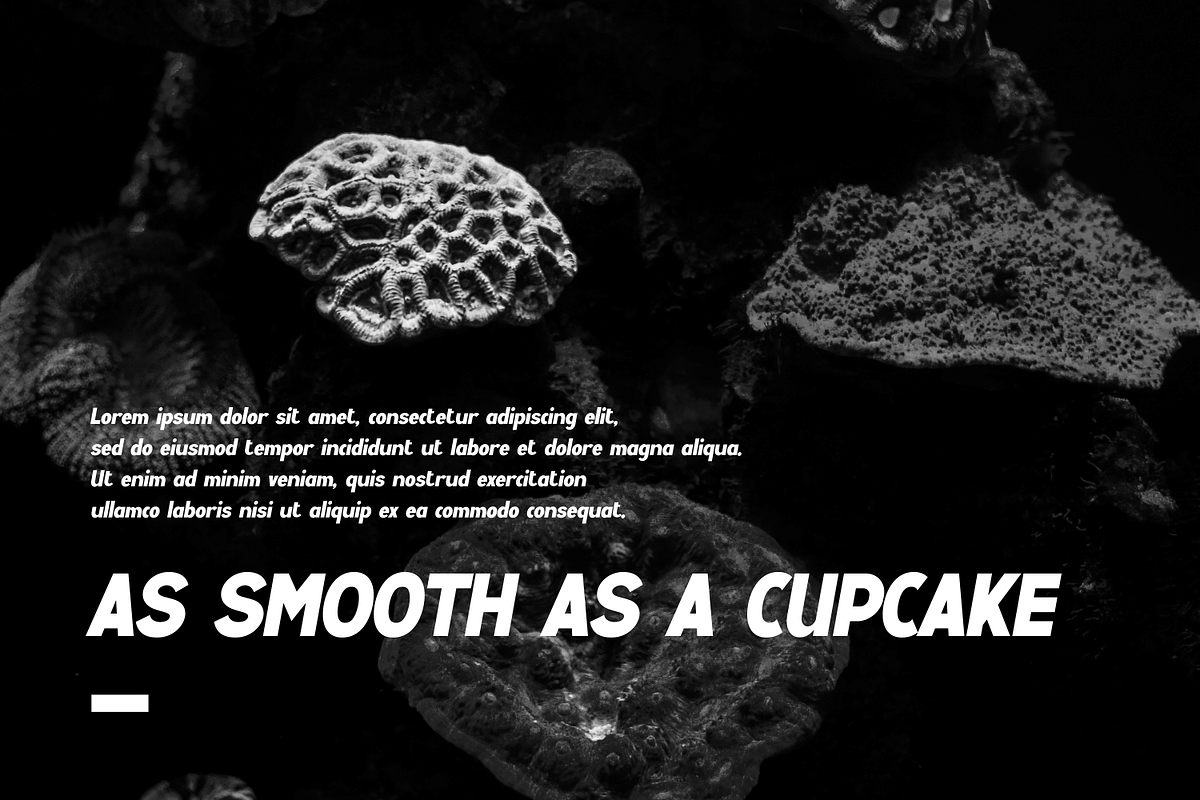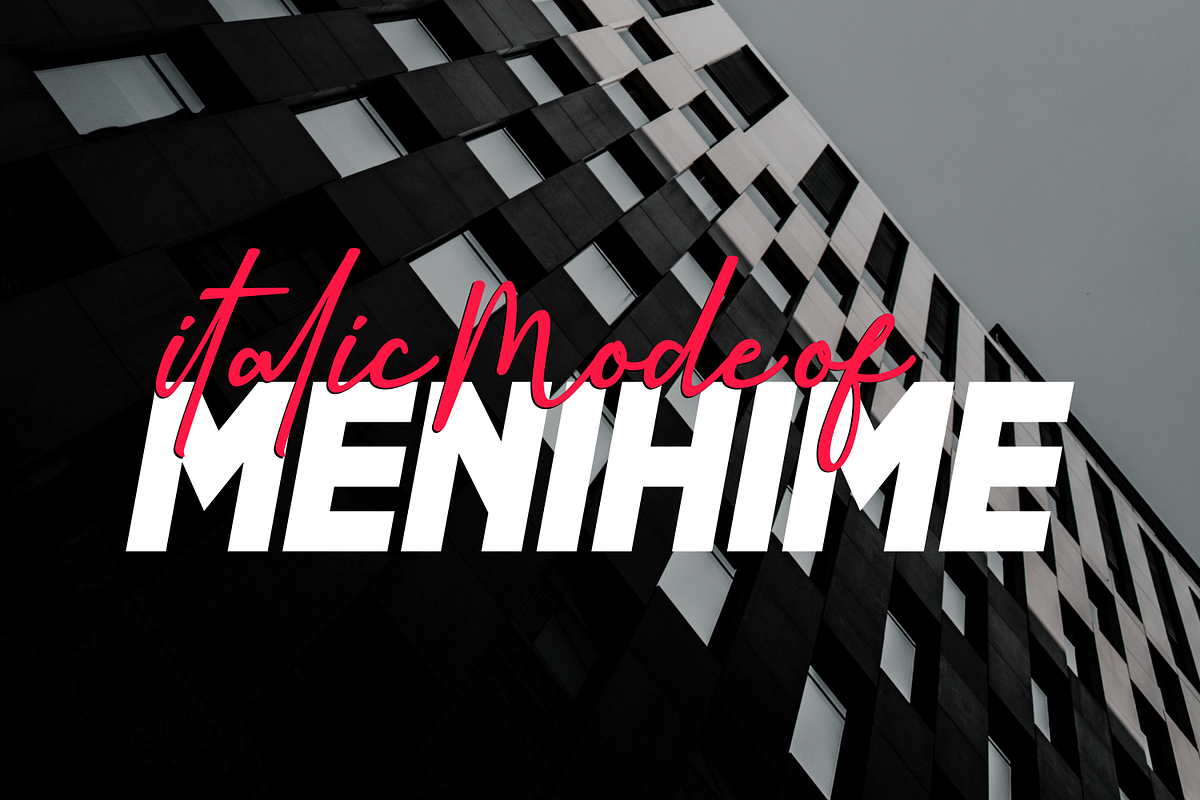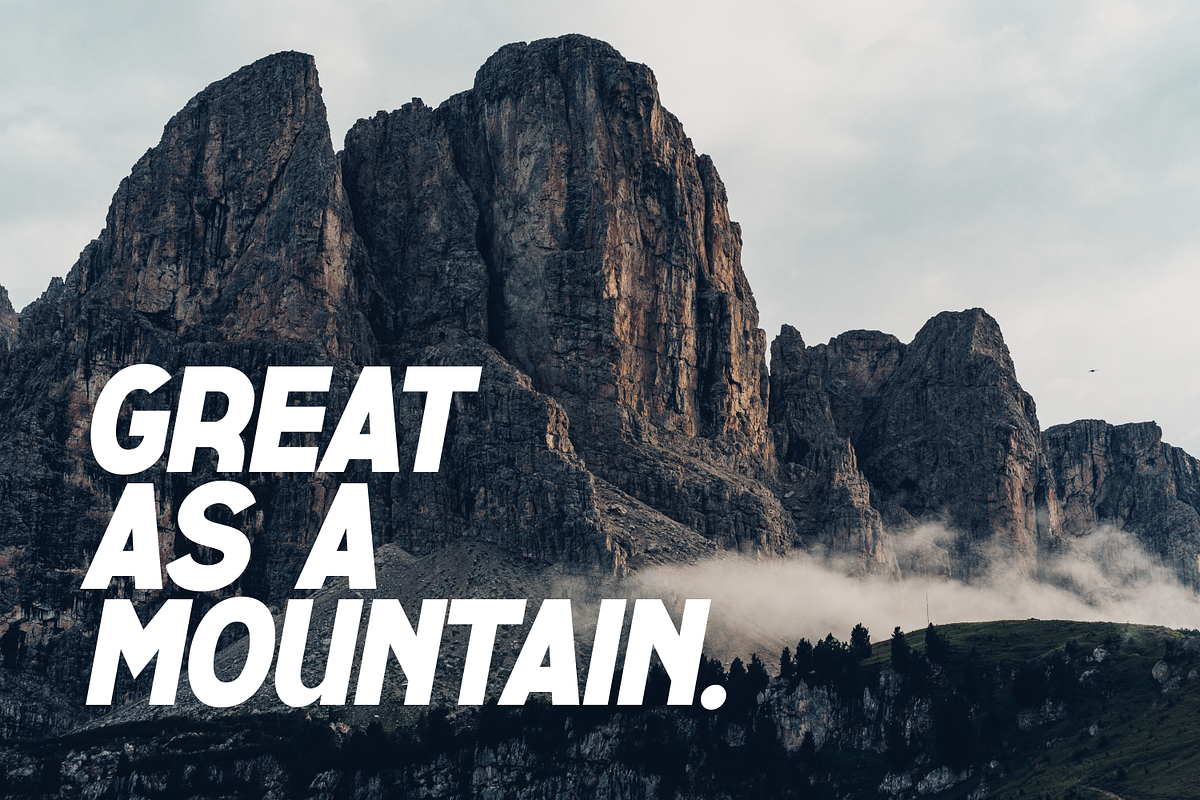
Menihime Italic
Menihime Italic Perfectly suited on print/screen. it’s perfect for Branding, name card, poster, logo, magazine, cover, banner, t-shirt and headers, or even large-scale artwork.